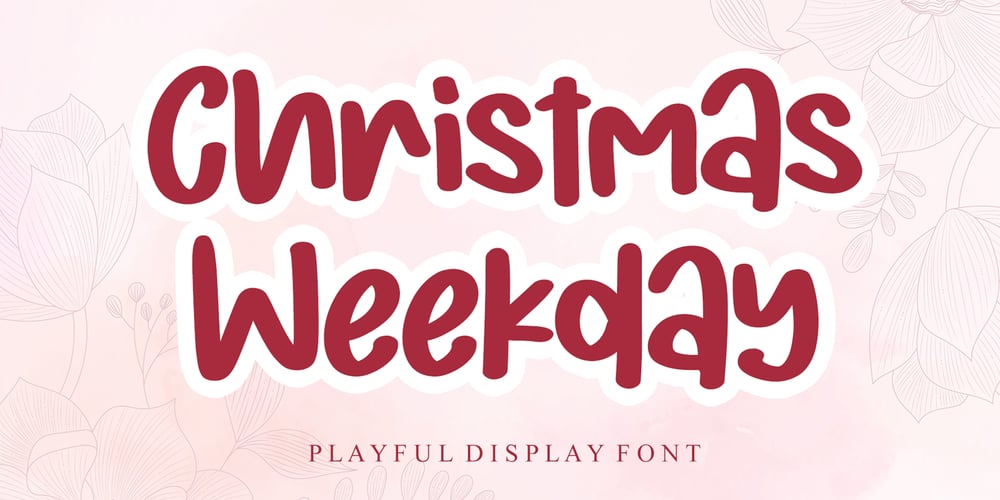
Christmas Weekday
Christmas Weekday font
Christmas Weekday Font Family was designed by Ahmad Afandi and published by Letterafandi Studio. Christmas Weekday contains 2 styles and family package options. Christmas Weekday is a lovely, cute, and fun display font. This original look will appeal to a wide range of crafty ideas, from letterheads and titles to stationery.